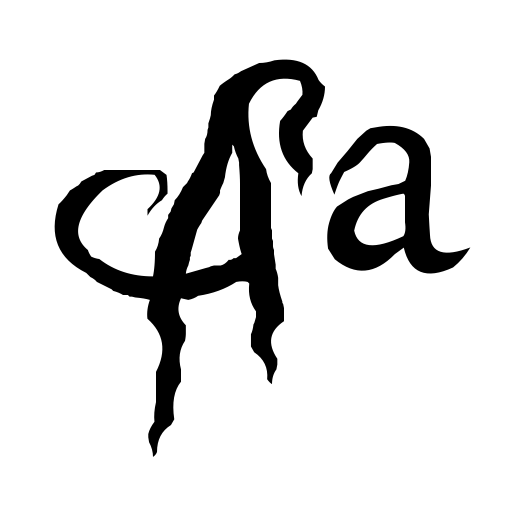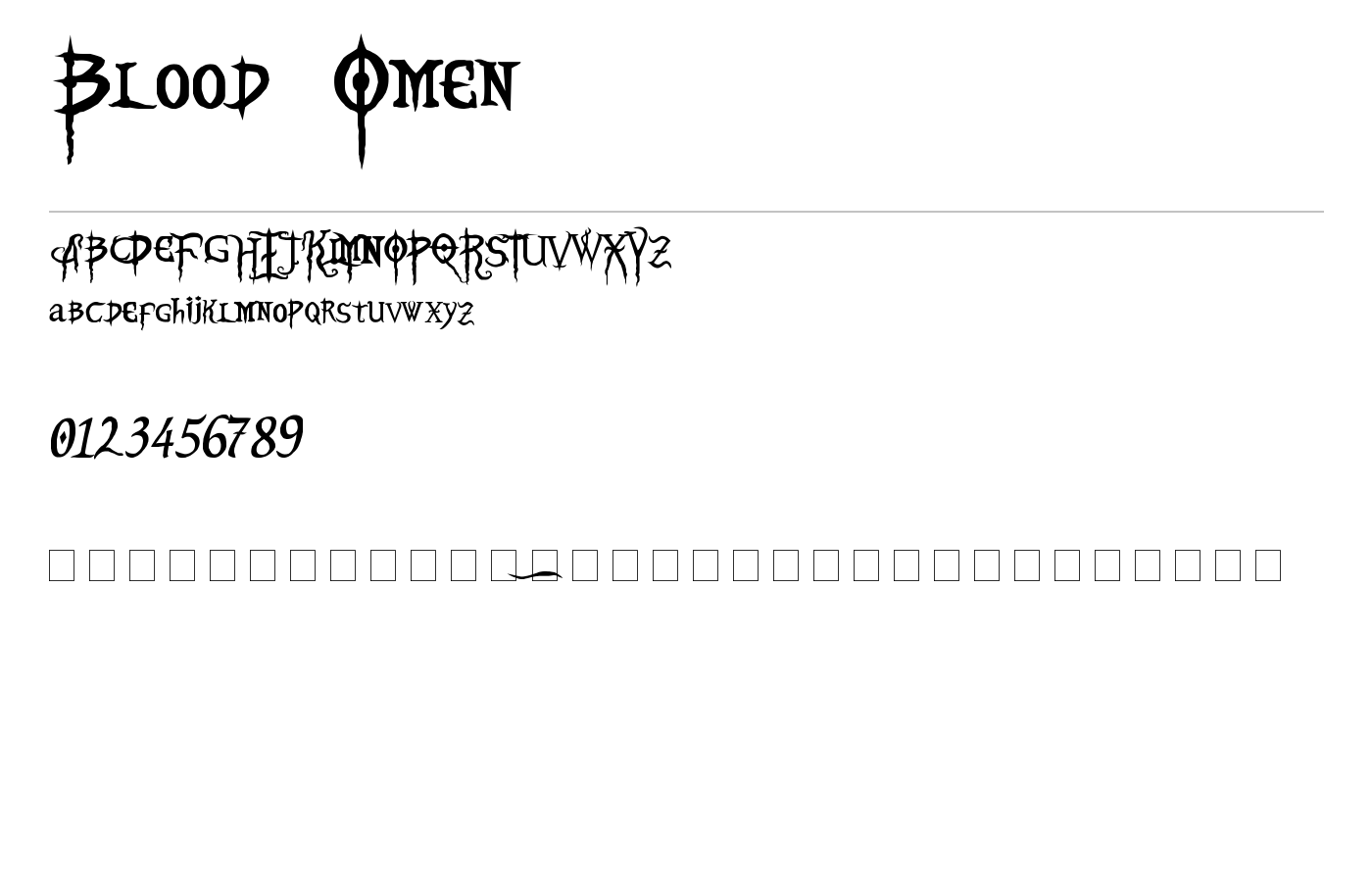
Blood Omen is a decorative serif font with a dark, gothic style characterized by sharp, elongated serifs and dramatic tapering strokes that evoke a mysterious, medieval atmosphere. Its elaborate uppercase letters and slightly distressed lowercase forms create a haunting, eerie vibe perfect for fantasy, horror, or vintage-themed designs. This font works best in logos, posters, and titles where a dramatic, spooky impact is desired.
Blood Omen Font